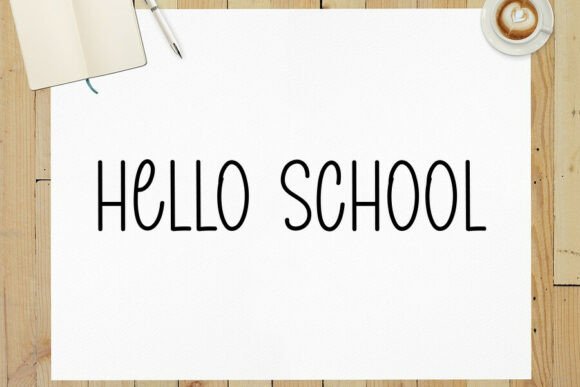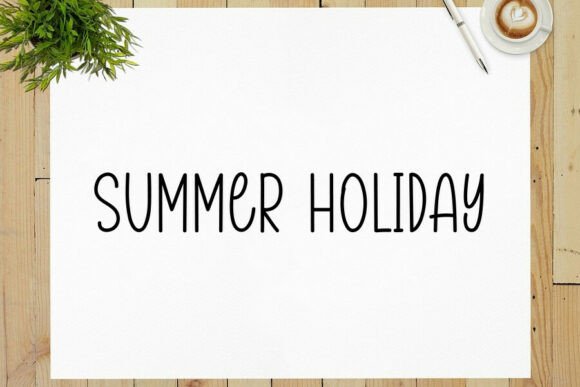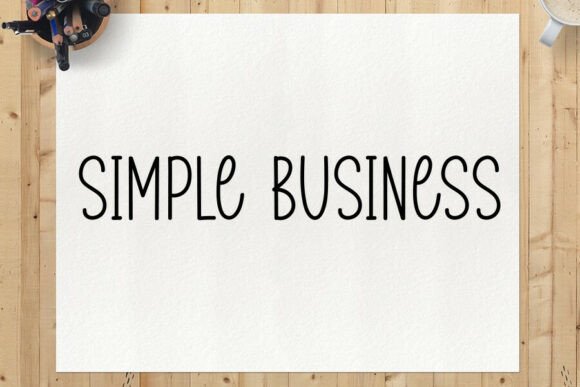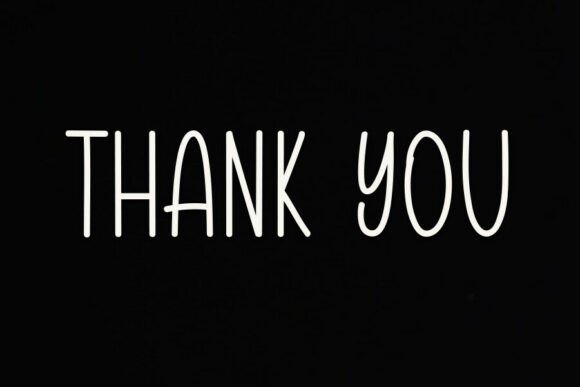
Introducing Bodyguart Font: The Ultimate Handwritten Font for Designers and Crafters
Are you tired of using generic, overused fonts in your designs? Look no further than Bodyguart Font, a clean and simple handwritten font that brings a natural, personal touch to any project. With its smooth and friendly letterforms, Bodyguart is perfect for a wide range of uses, from greeting cards and notes to headlines, logos, and more.
The Characteristics of Bodyguart Font
Bodyguart Font is a beautifully crafted handwritten font that exudes warmth and authenticity. Its relaxed, versatile style makes it perfect for adding a personal touch to your designs, creating a sense of approachability and charm that resonates across both print and digital designs. The font’s smooth letterforms are easy to read, making it perfect for body text, while its unique character makes it stand out for headlines and titles.
Uses of Bodyguart Font
Bodyguart Font is incredibly versatile and can be used in a wide range of design projects, including:
• Greeting cards and invitations: Add a personal touch to your cards and invitations with Bodyguart’s smooth and friendly letterforms.
• Notes and journals: Use Bodyguart to add a touch of warmth and authenticity to your notes and journals.
• Headlines and titles: Bodyguart’s unique character makes it perfect for headlines and titles, adding a touch of personality to your designs.
• Logos and branding: Use Bodyguart to create a unique and memorable logo for your brand, adding a touch of approachability and charm.
• Digital designs: Bodyguart is perfect for digital designs, including social media graphics, blog posts, and more.
Benefits of Using Bodyguart Font
There are many benefits to using Bodyguart Font in your designs, including:
• Unique and memorable: Bodyguart’s smooth and friendly letterforms make it a unique and memorable font that will set your designs apart.
• Versatile: Bodyguart is incredibly versatile and can be used in a wide range of design projects.
• Easy to read: Bodyguart’s smooth letterforms are easy to read, making it perfect for body text.
• Authentic: Bodyguart adds a touch of warmth and authenticity to your designs, creating a sense of approachability and charm.
Tips for Using Bodyguart Font
Here are a few tips for using Bodyguart Font in your designs:
• Use it sparingly: Bodyguart is a beautiful font, but it can be overwhelming if used too much. Use it sparingly to add a touch of personality to your designs.
• Experiment with different colors: Bodyguart looks great in a variety of colors, so don’t be afraid to experiment and find the perfect color for your design.
• Pair it with other fonts: Bodyguart pairs well with a variety of other fonts, so don’t be afraid to experiment and find the perfect combination for your design.
Bodyguart Font is a beautiful and versatile handwritten font that brings a natural, personal touch to any design. With its smooth and friendly letterforms, Bodyguart is perfect for a wide range of uses, from greeting cards and notes to headlines, logos, and more. Its relaxed, versatile style makes it perfect for adding a touch of warmth and authenticity to your designs, creating a sense of approachability and charm that resonates across both print and digital designs. So why not give Bodyguart Font a try and see the difference it can make in your designs?